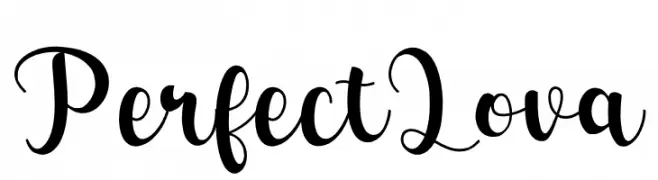
A charming and elegant script font with flowing, cursive letters.
A bold, retro script font with flowing curves and vintage charm.
A playful, cursive font with fluid, interconnected strokes and a whimsical charm.
A charming and elegant script font with fluid, connected strokes and a handwritten style.
A whimsical, narrow font with consistent strokes and a modern, bohemian charm.
A playful, casual handwritten font with fluid strokes and a whimsical charm.
A playful, whimsical handwritten font with flowing strokes and a casual charm.
A charming and elegant script font with flowing, cursive letterforms.
A charming and fluid script font with elegant, flowing lines and smooth curves.
A playful, cursive script font with a romantic and whimsical charm.